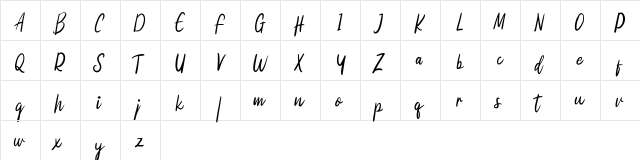
Motibe Cebiks FREE Regular
| Foundry | Vunira Design |
| Designer | Vunira Design |
Design Context for Motibe Cebiks FREE Typeface
Motibe Cebiks FREE is a composed and adaptable typeface that performs quietly and consistently across a wide range of design contexts.